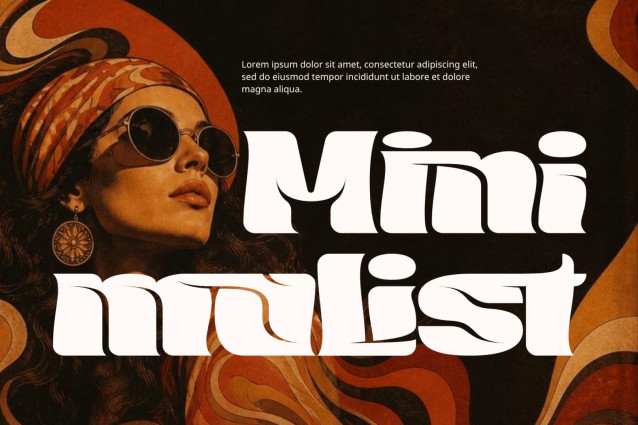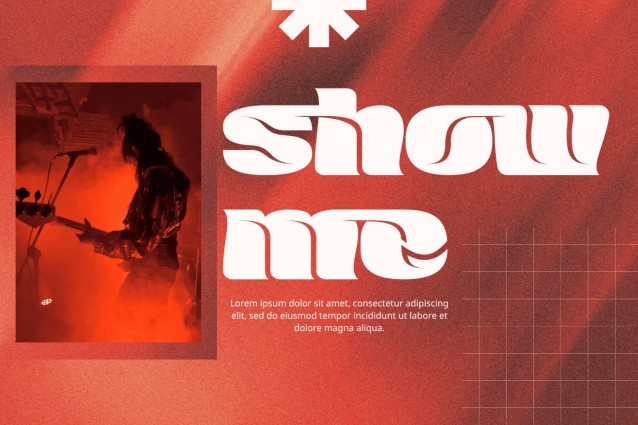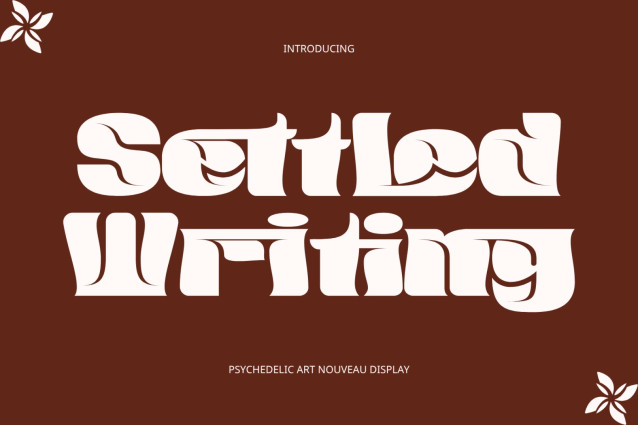
Settled Writing – Bold Retro Font is a bold retro display typeface that blends classic serif influences with expressive curves and distinctive decorative details. Built with substantial letterforms, strong contrast, sculpted terminals, and softly flowing inner shapes, the typeface delivers a confident visual presence while retaining an elegant and artistic personality.
One of its defining features is the use of curled and folded-looking details within the characters, creating an organic sense of movement throughout the alphabet. Broad proportions, compact counters, sweeping curves, and unconventional serif treatments give Settled Writing a distinctive character inspired by vintage editorial typography and the expressive lettering styles of the 1970s. Bold yet sophisticated, Settled Writing is ideal for logos, branding, fashion graphics, editorial headlines, magazines, posters, packaging, album covers, beauty and lifestyle projects, apparel, invitations, social media graphics, and retro-inspired identities. Its memorable silhouette makes it especially effective at large sizes where every curve and decorative detail can become part of the visual statement.